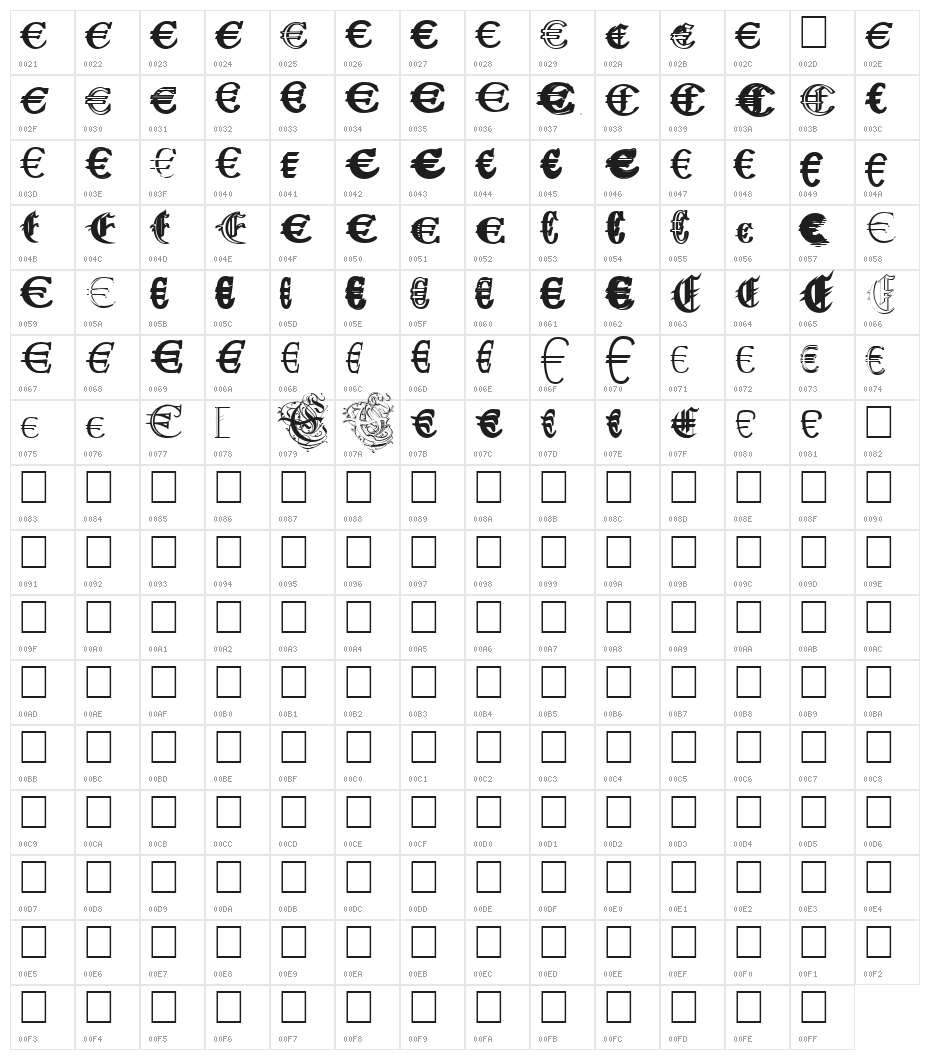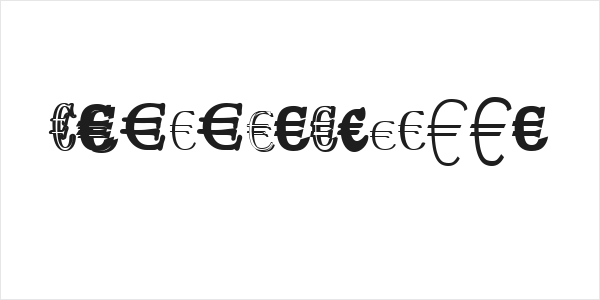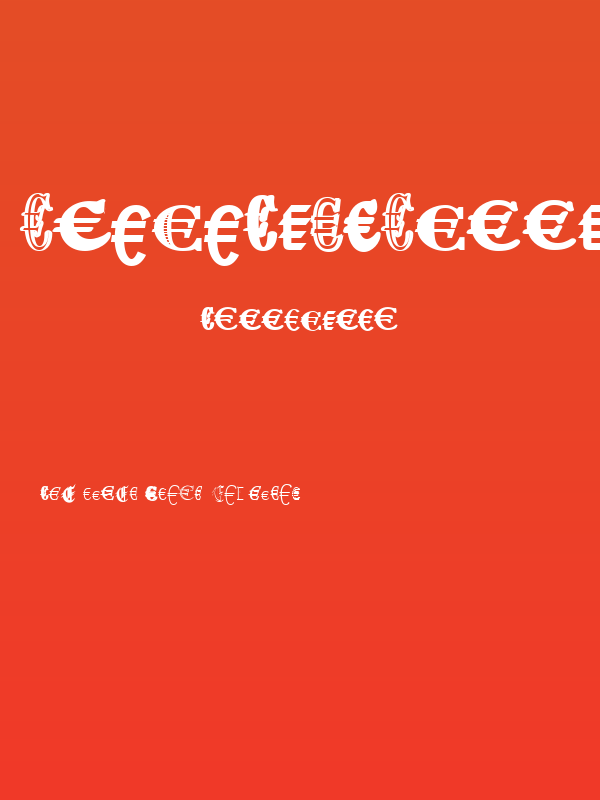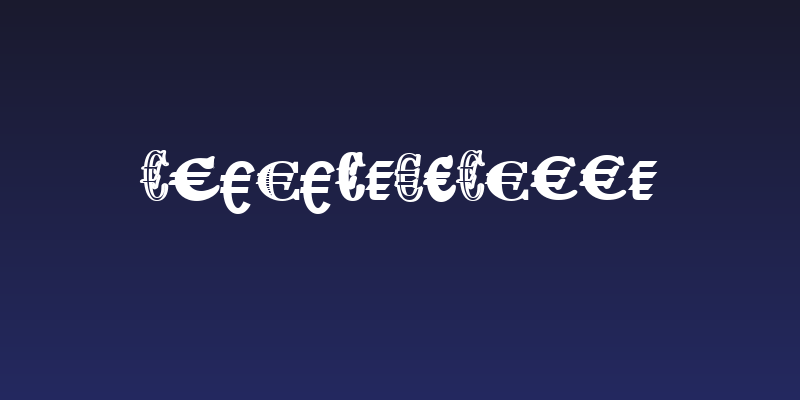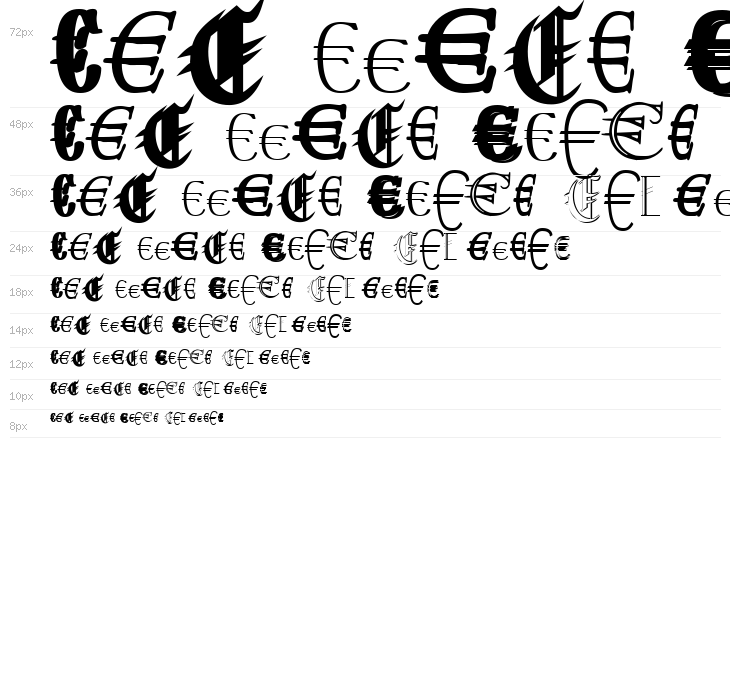
Ubiqita_Europa Font
Ubiqita_Europa Description
A decorative font with a strong emphasis on the Euro symbol, featuring various artistic and stylized interpretations.
| Overall Style | Artistic and thematic. |
| Use Case | Logos, Posters, Themed artwork. |
| Proposed Projects | Art projects, financial-themed designs, creative posters. |